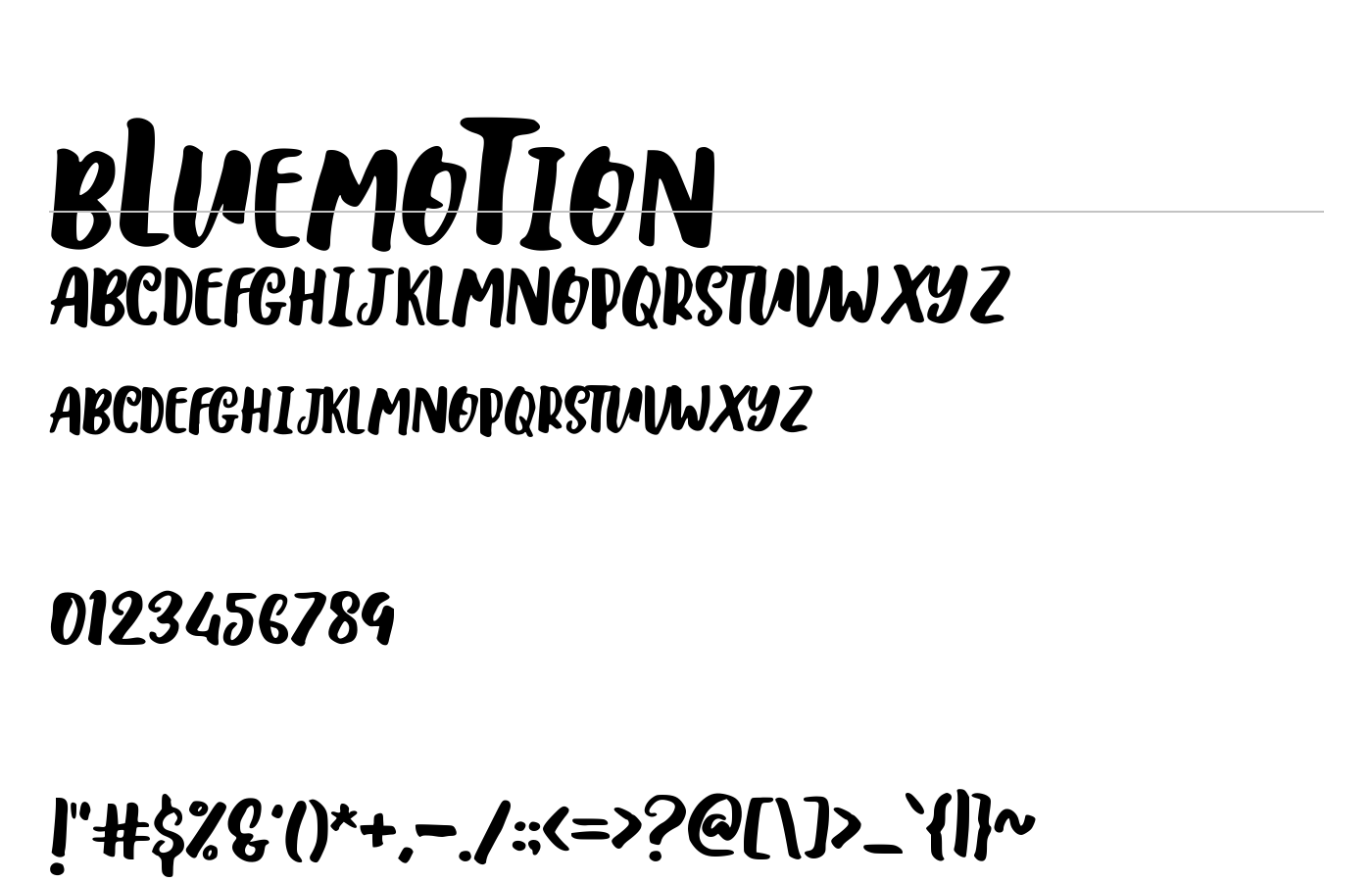
bLuemoTion is a lively and bold handwritten sans serif font that brings an energetic, friendly vibe to any design. Its irregular, brush-like strokes and playful letterforms make it ideal for eye-catching headlines, branding, or creative projects seeking a casual and approachable feel. This font works especially well in settings where personality and warmth are desired, such as logos, posters, and informal editorial layouts.
bLuemoTion Font